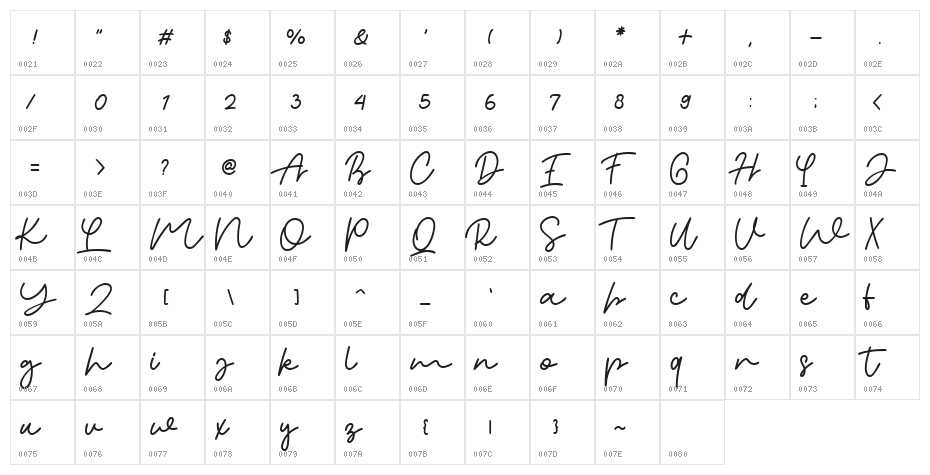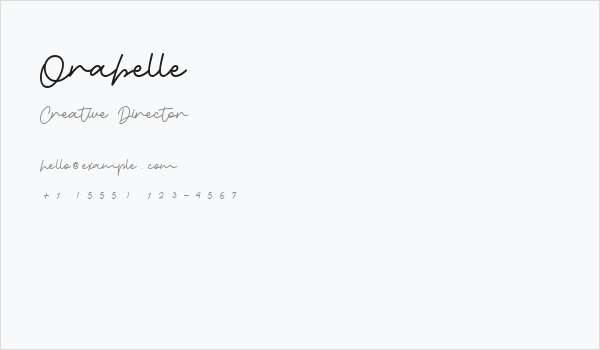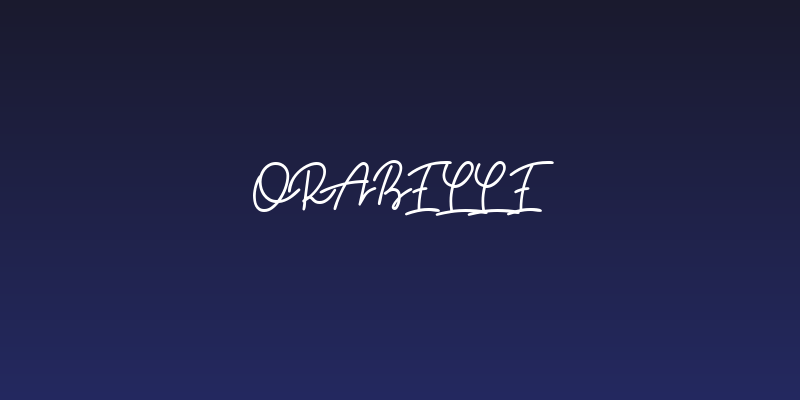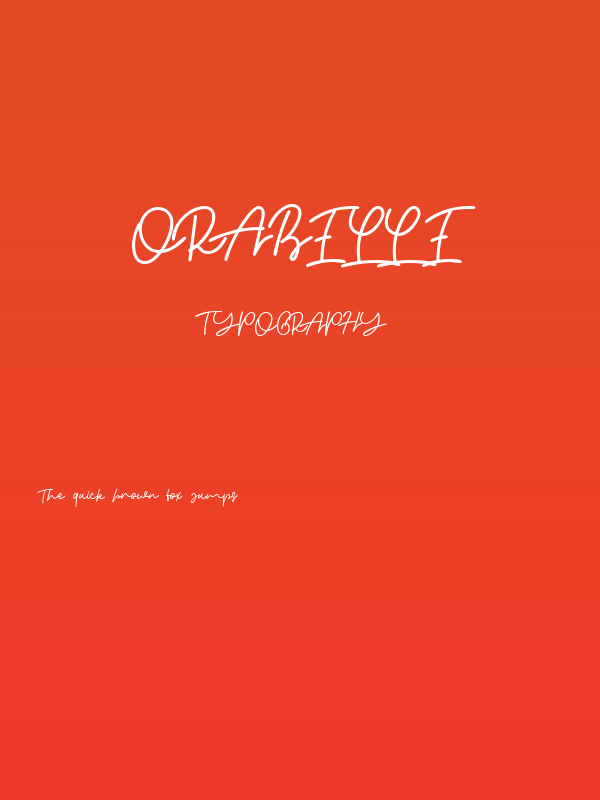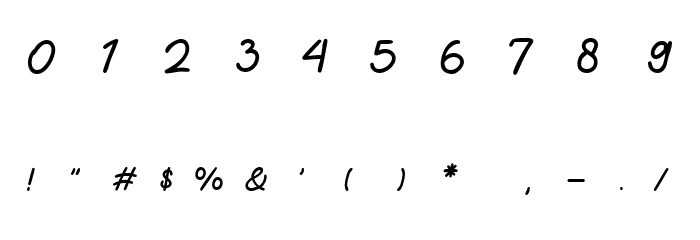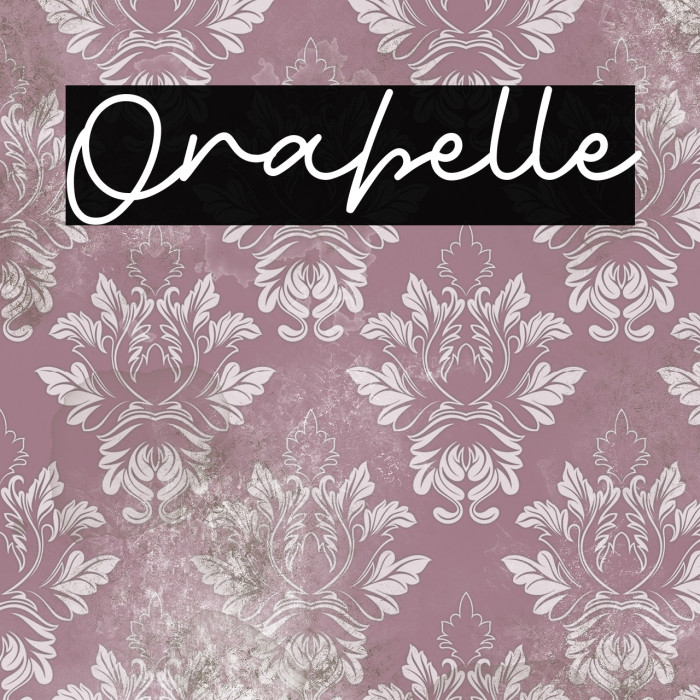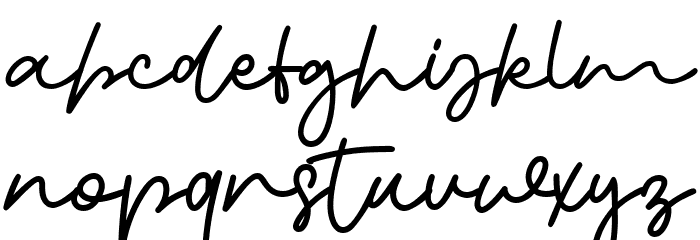
Orabelle Font
Orabelle Description
This font features a flowing, cursive style that mimics natural handwriting with a touch of elegance. The letters are connected smoothly, creating a sense of continuity and fluidity. The uppercase letters are slightly more ornate, with loops and curves that add a decorative flair. The lowercase letters maintain a consistent baseline, enhancing readability while preserving the handwritten aesthetic. Numbers and special characters are crafted with the same attention to detail, ensuring they blend seamlessly with the alphabet. The overall appearance is both stylish and approachable, making it suitable for a variety of creative applications.
| Proposed Projects | Ideal for wedding invitations, greeting cards, personal branding, and artistic projects. |